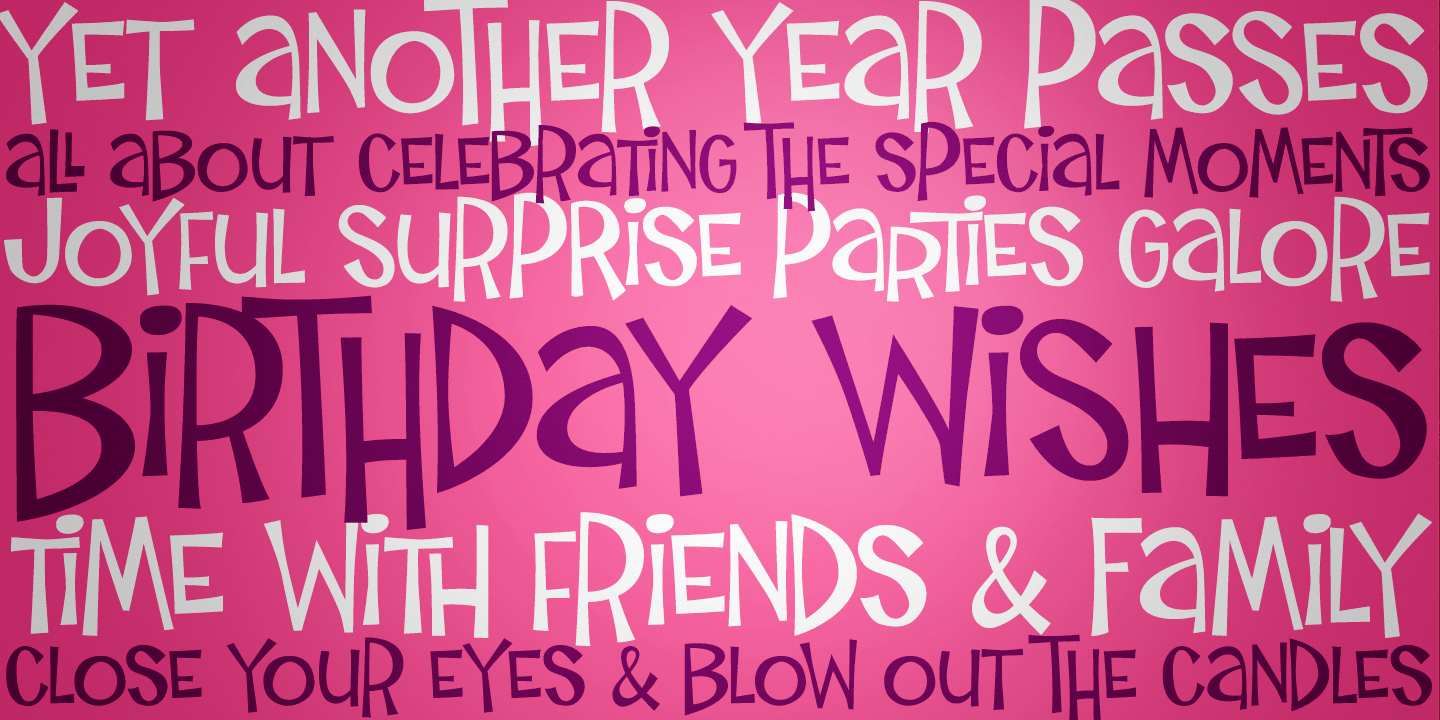
Birthday Wish PB Regular
Designed by Phil Bracco, Birthday Wish PB is a hand display and kids font published by Pink Broccoli.
Birthday Wish is a totally off-kilter sans-serif font inspired by a late 70
Birthday Wish is a totally off-kilter sans-serif font inspired by a late 70’s birthday greeting card. Much like a typographic drunken stumble, this font wonderfully and awkwardly fumbles across designs, surprising with each letter typed.
With a pseudo unicase character set, and offbeat letter weighting, Birthday Wish is fun to typeset with, with a cluster of ligature combinations that add to the quirky playfulness. You’ll find this Birthday Wish is a typesetting ride of a font. Try typing standard, all caps, or all lowercase for even more visual variety.